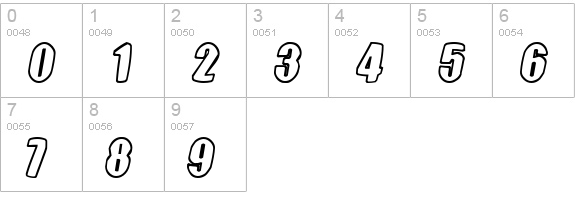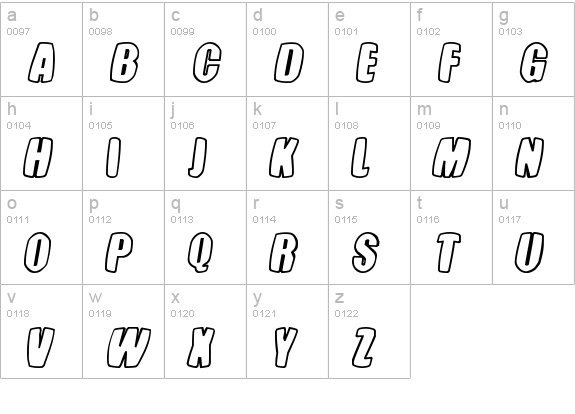
Tasteless Candy Font Details
Introducing the Tasteless Candy font, a playful and whimsical typeface that adds a unique twist to any design project. This font is perfect for those seeking a touch of fun and creativity in their designs, whether it be for posters, invitations, or even branding materials. With its irregular and slightly messy letterforms, Tasteless Candy exudes a sense of playfulness that will capture the attention of viewers. Each character is uniquely designed, offering a hand-drawn aesthetic that adds a personal touch to your creations. What sets Tasteless Candy apart is not just its delightful appearance, but also its versatility. This font can be used for a variety of purposes, from children's books and magazine covers to social media graphics and party invitations. Its bold and eye-catching nature guarantees that your message will be noticed and remembered. Best of all, Tasteless Candy is completely free! Yes, you read that right – this font is freely available to download at FontsMarket.com. We believe that creativity should be accessible to everyone, and that includes providing high-quality fonts at no cost. So, why wait? Download Tasteless Candy today and let your imagination run wild. Whether you’re a professional designer or simply someone looking to add a touch of whimsy to their personal projects, this font is sure to bring a smile to your face. Don't miss out on this wonderful opportunity to enhance your designs with a font that is as delightful as it is free.